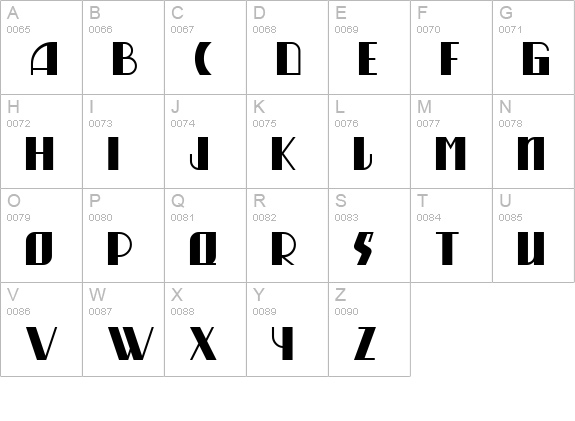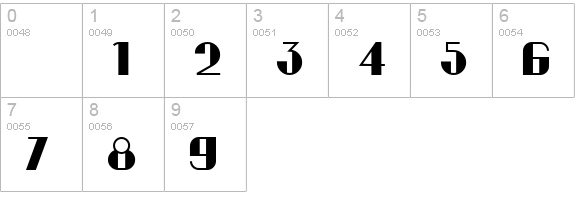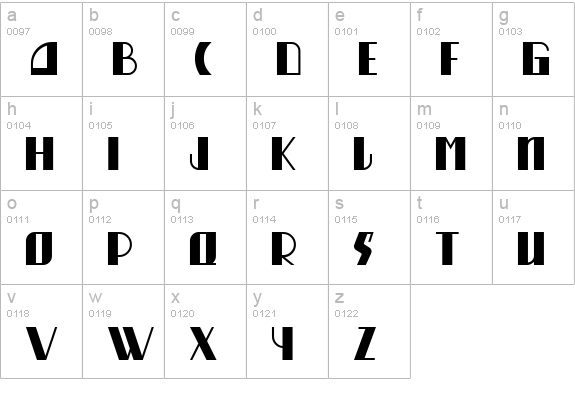
MunchausenNF Font Details
MunchausenNF font is a whimsical and charming typeface that exudes a playful and artistic flair. With its unique and intricate design, this font is sure to make your projects stand out from the crowd. Whether you're designing a poster, logo, or invitation, MunchausenNF font is the perfect choice to add a touch of creativity and personality. Best of all, MunchausenNF font is completely free to download at FontsMarket.com. This means you can easily access this beautiful font and use it in your projects without any cost. So why wait? Download MunchausenNF font today and let your creativity soar!